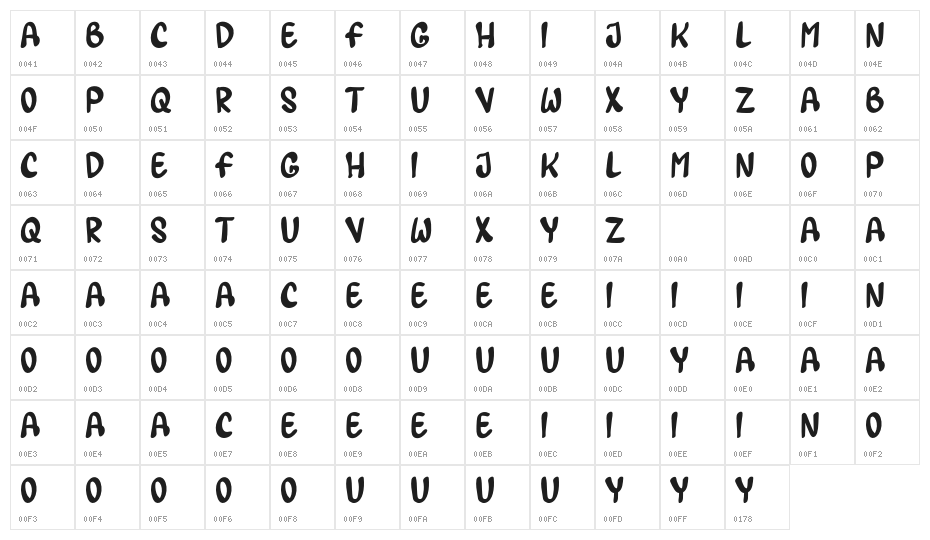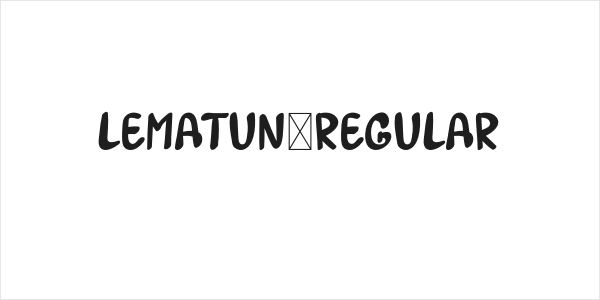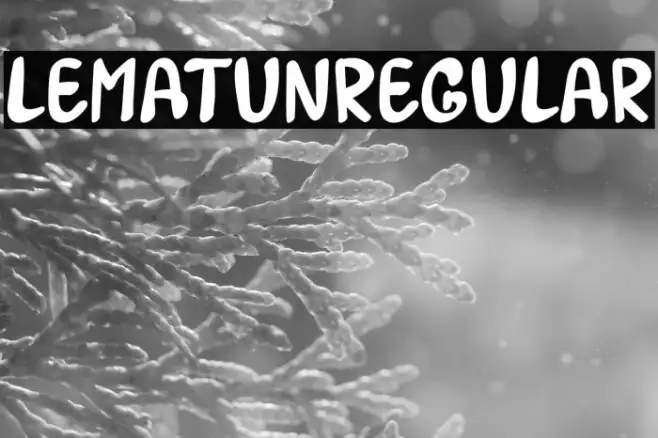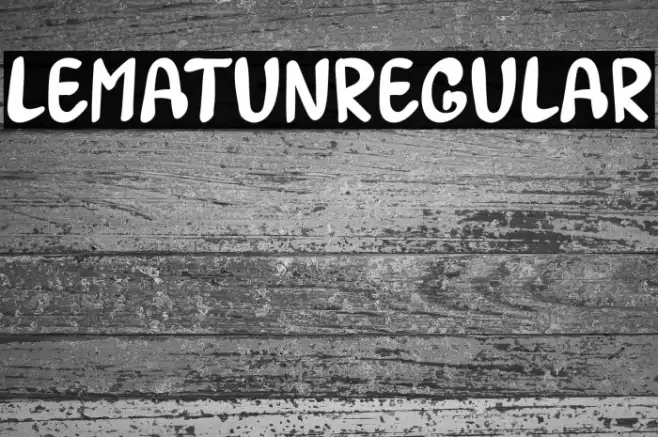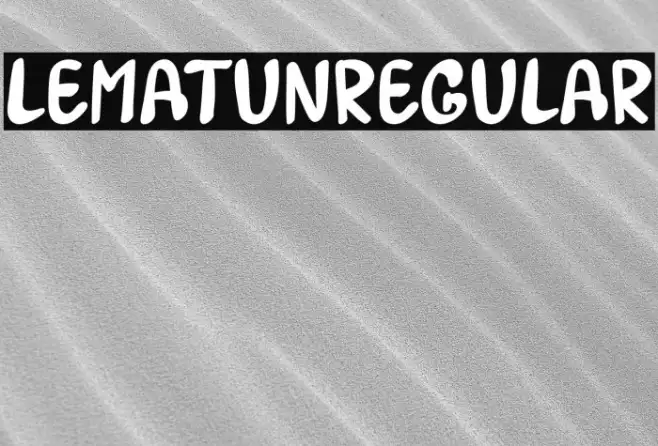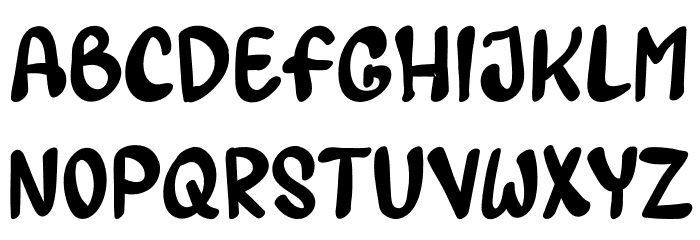
LEMATUN1Regular Font
LEMATUN1Regular Description
This font features a bold and playful style, characterized by its rounded and slightly irregular letterforms. The uppercase letters are prominent and have a hand-drawn appearance, giving a casual and friendly vibe. The strokes are thick and consistent, contributing to a strong visual presence. The font lacks lowercase letters and numerals, focusing solely on uppercase characters. Its unique style makes it suitable for creative and informal applications, where a touch of whimsy is desired.
| Overall Style | Playful, Casual |
| Proposed Projects | Ideal for children's books, playful branding, posters, and creative projects requiring a fun and informal touch. |